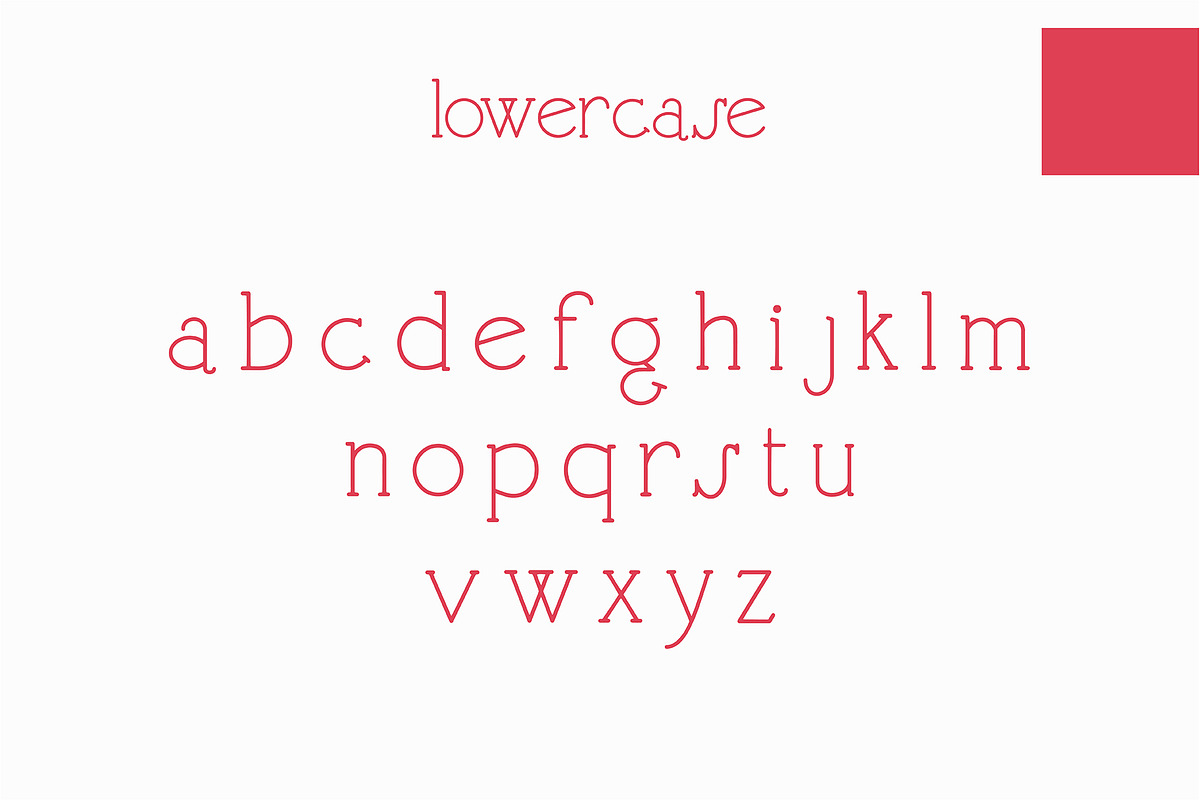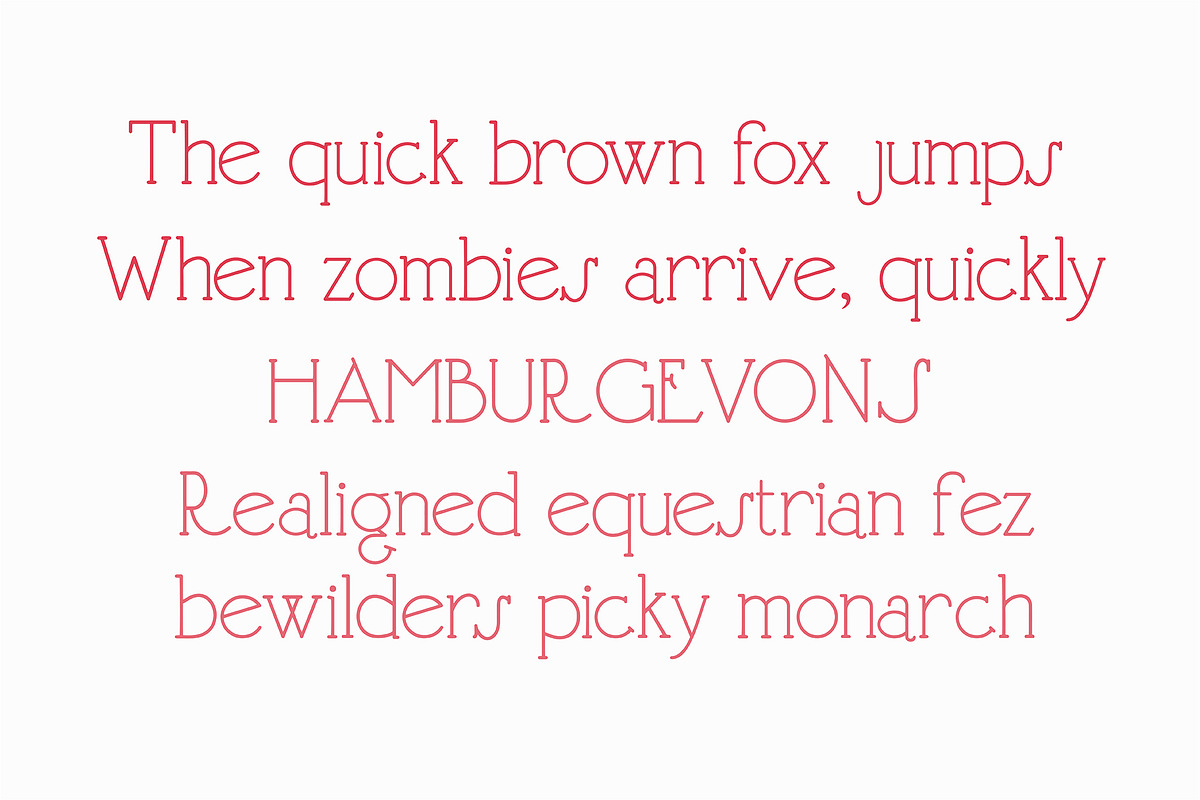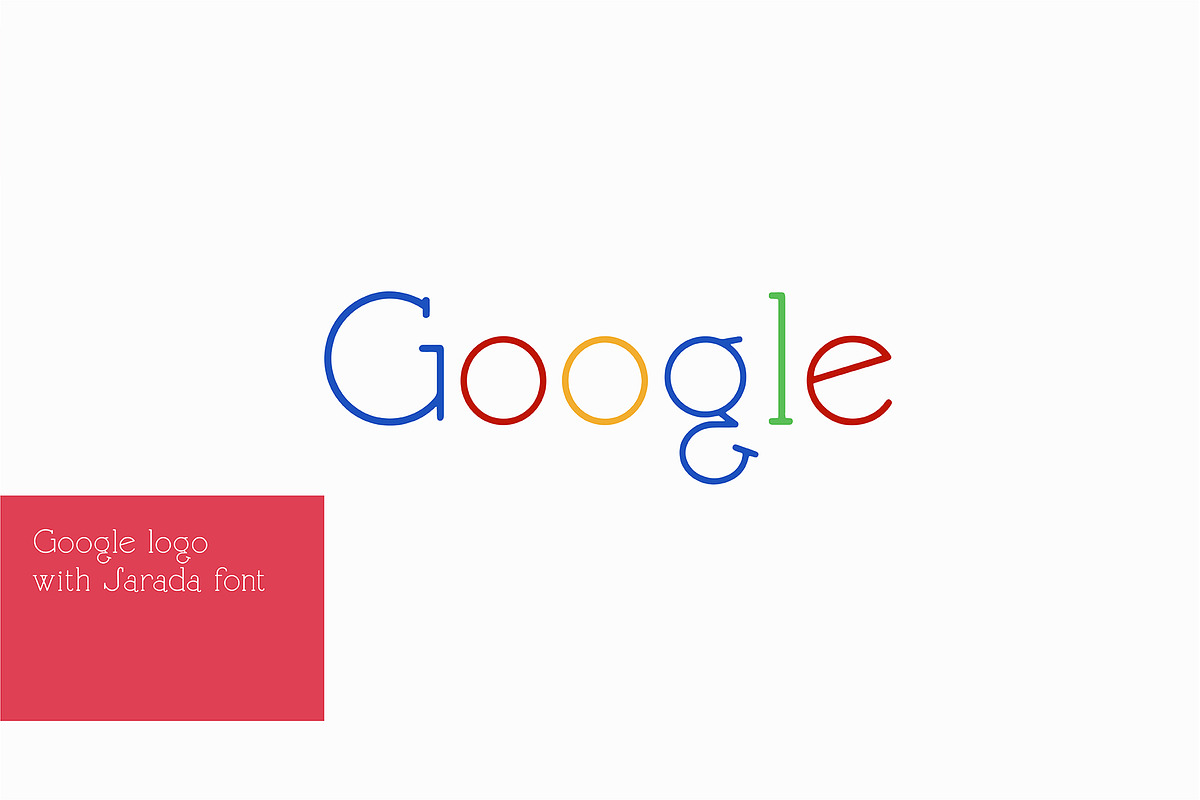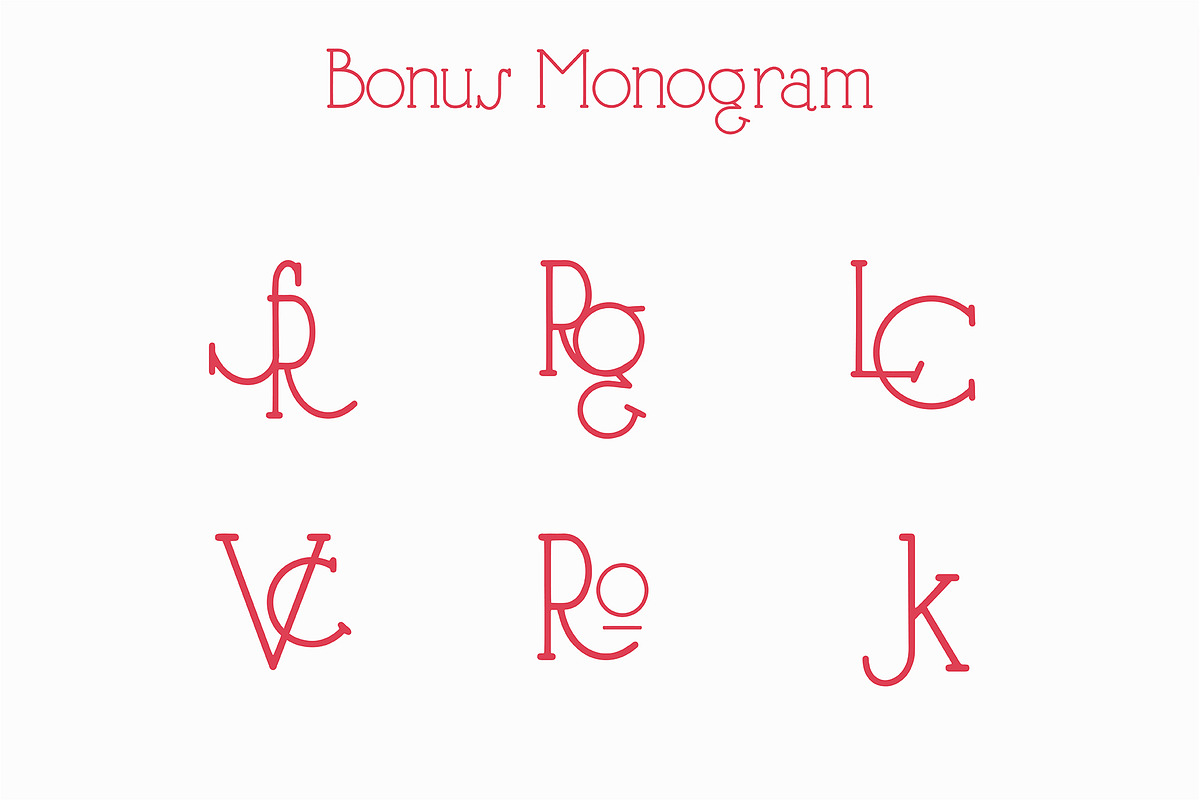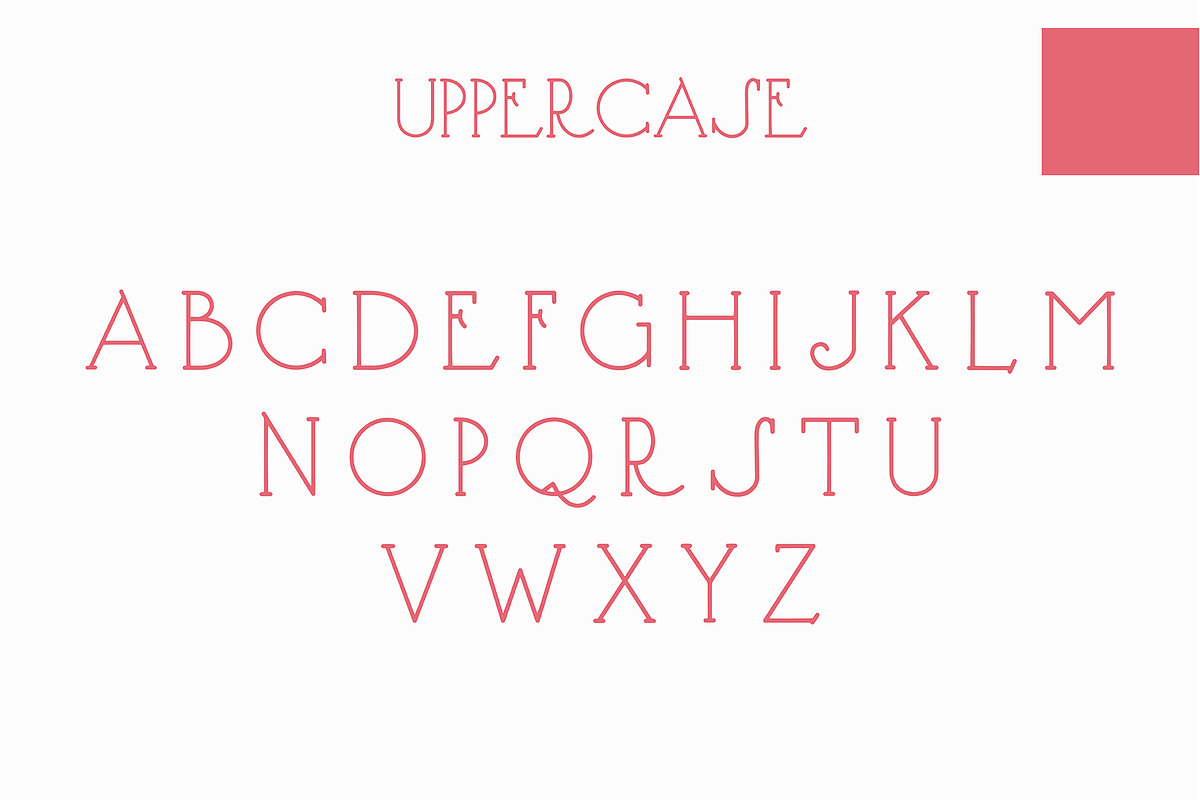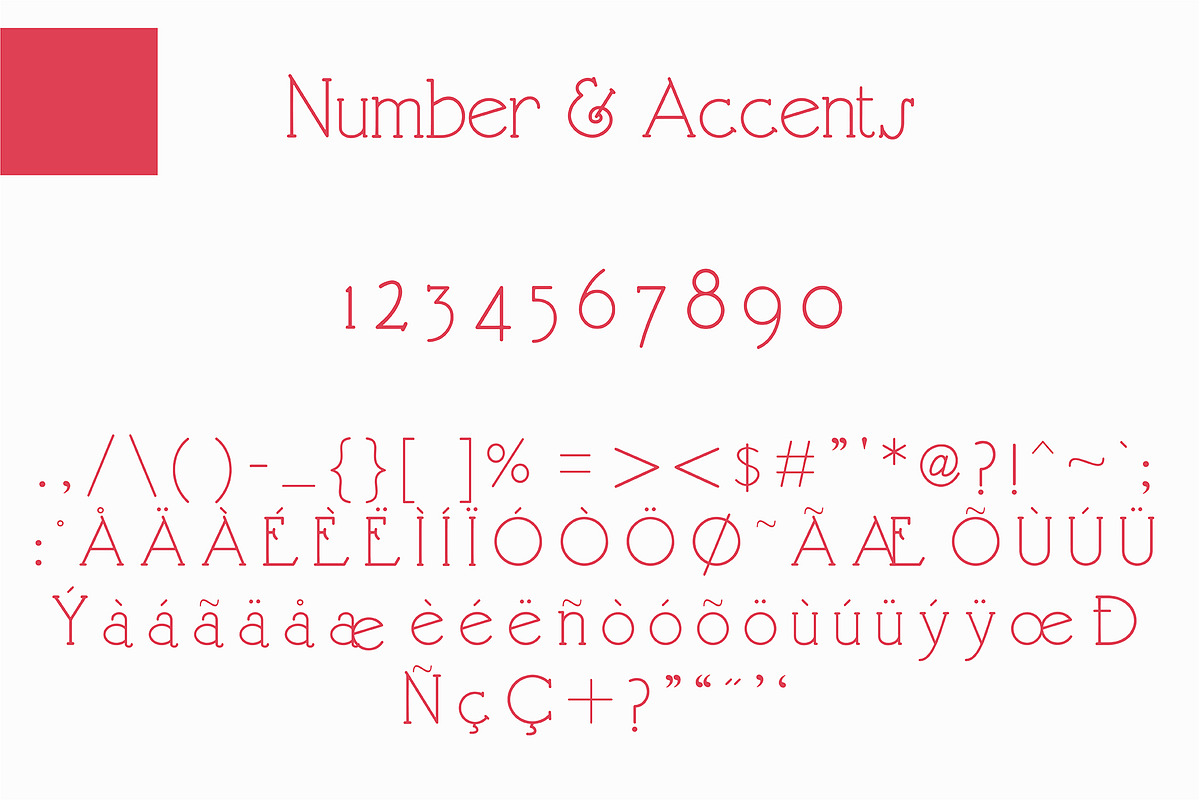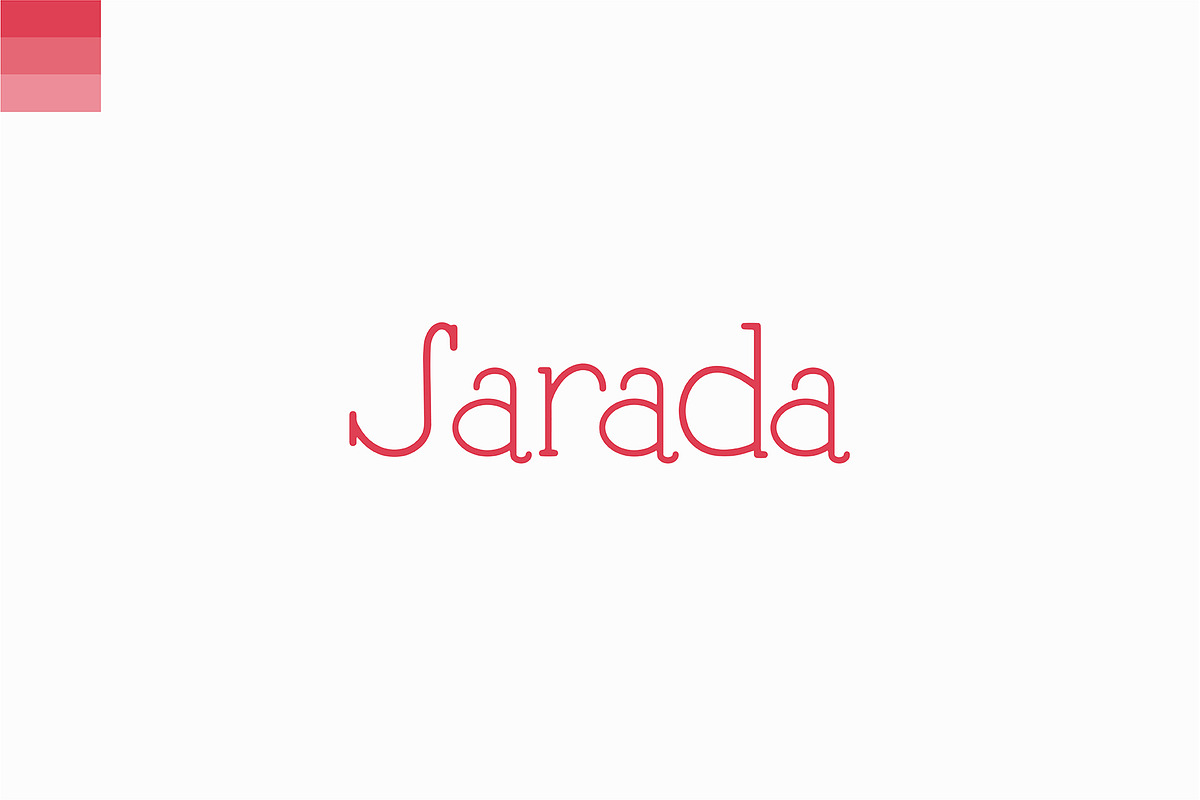
Sarada font
sarada ~ slab serif is a unique font, looks simple but has elegance in it. making fonts inspired from from a book, this font design to look simple but save its uniqueness.
This font is easy to read and uses simple characters, this font is suitable for your graphic design activities. This font is suitable for logo, typography and use of letters in magazines and other print media.